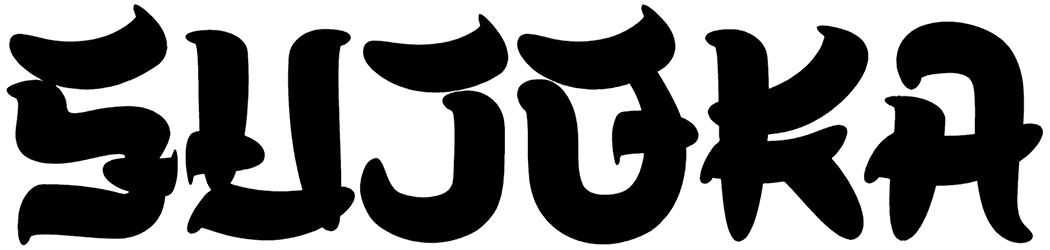
Sujoka Font
The Chinese always find a way to showcase their history in their designs that even catches a foreigner’s eye. This Japanese font has a brush stroke illusion, which we have seen in ninja looks, and makes your words more exciting. The Sujoka font can be used to write Asian movie titles and posters, decorative headlines, product packaging, and event banners. No numbers are included in this collection.
Designed by: Twinletter